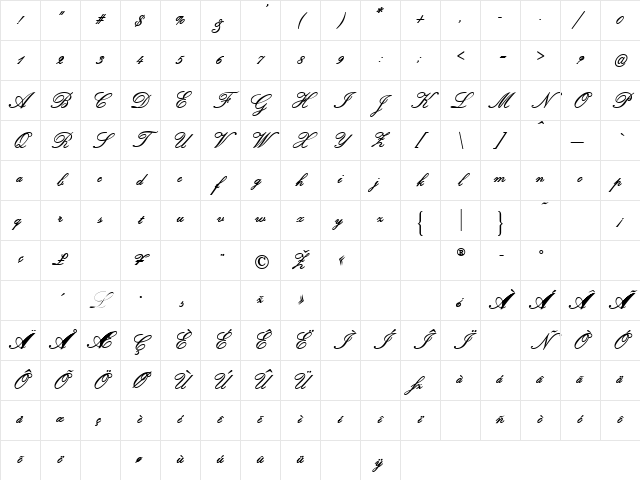
ArtistsScript SemiBold Free Font
ArtistsScript SemiBold
Style: SemiBold
Design Context for ArtistsScript
ArtistsScript flows with the natural rhythm of handwritten lettering, making it ideal for designs that call for warmth and personal expression. Its bold stroke weight gives it real presence on the page.
Font Pairing: Combine ArtistsScript with a simple geometric sans for maximum contrast - the tension between flowing curves and clean structure is a classic typographic pairing.
Pro Tip: Use ArtistsScript for short runs of text - names, titles, or taglines. Extended body copy in script faces tires the eye quickly.